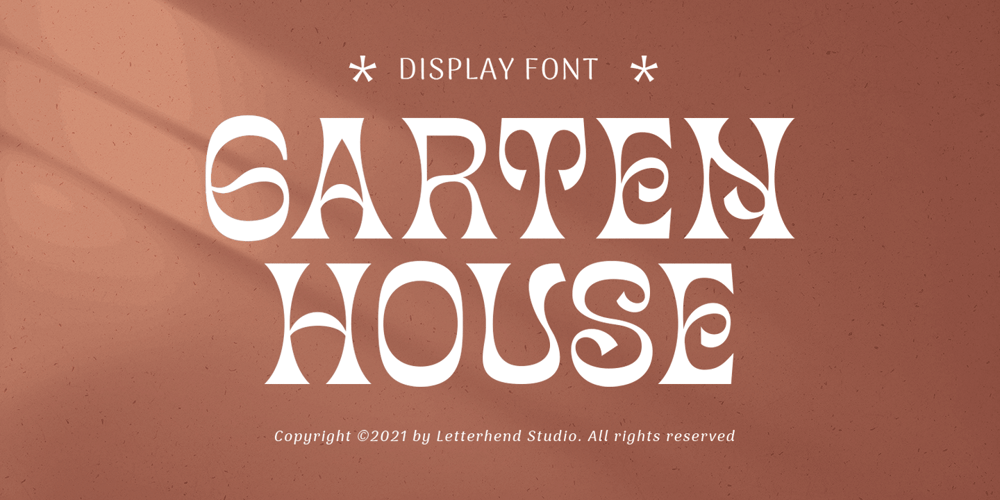
Garten House
Garten House font
Garten House Font Family was designed by Hendry Juanda and published by Letterhend. Garten House contains 1 styles and family package options. Garten House is a sophisticated high contrast display serif typeface. The ligature character makes this typeface unique and stands out rather than the regular serif font. Very suitable for logo, headline, tittle, and the other various formal forms such as invitations, labels, logos, magazines, books, greeting / wedding cards, packaging, fashion, make up, stationery, novels, labels or any type of advertising purpose.Features : Numbers and punctuation Multilingual Ligatures Alternates PUA encoded We highly recommend using a program that supports OpenType features and Glyphs panels like many of Adobe apps and Corel Draw, so you can see and access all Glyph variations.